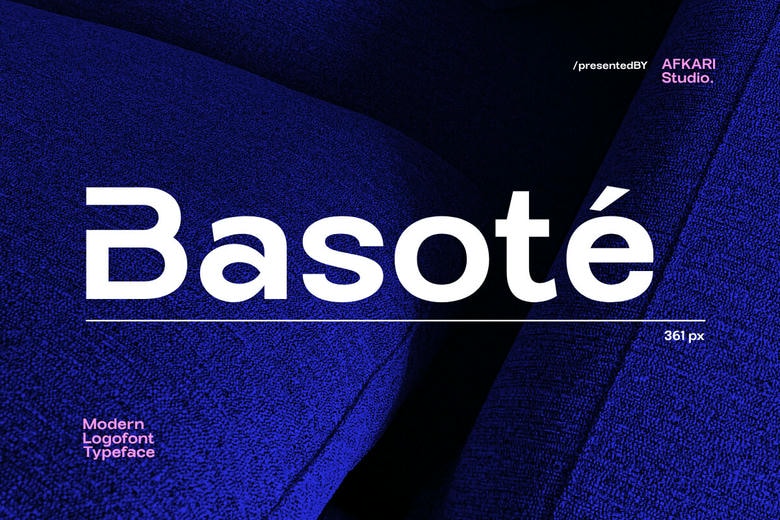
Basote is a clean and elegant font designed for contemporary logo purposes. Owing to its simple design and sophisticated shapes, it is an ideal solution for designing strong and recognizable logos and brands that convey the image of a modern and professional company.
Basote Sans Serif Font